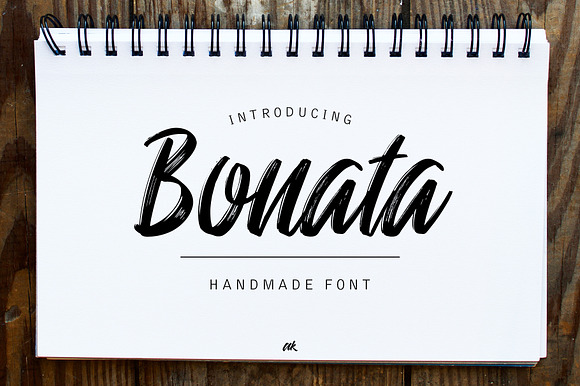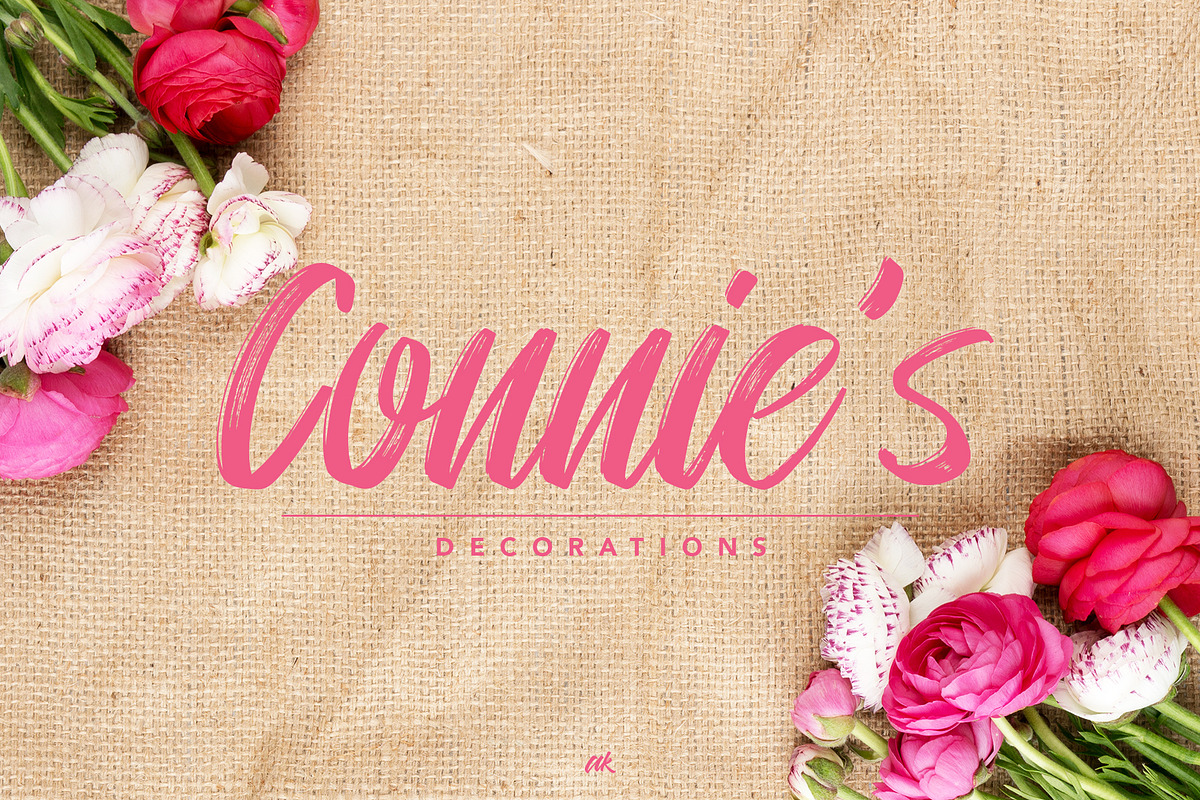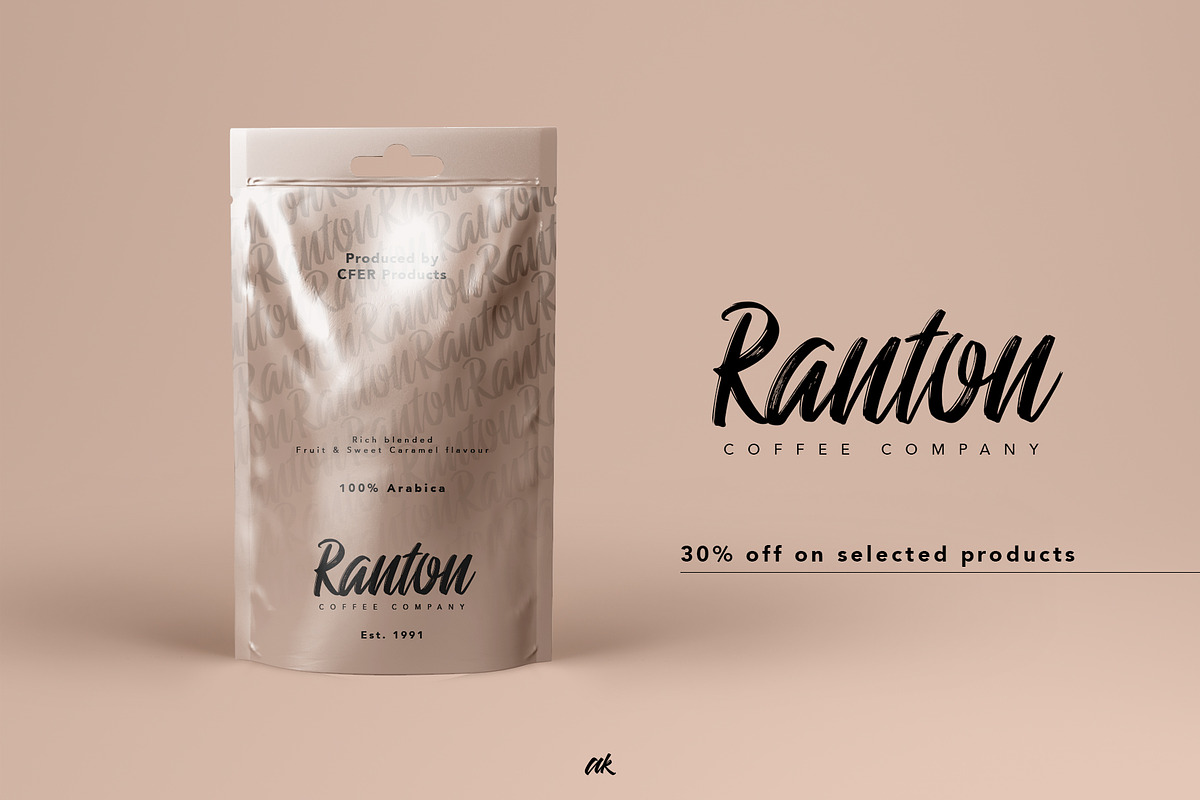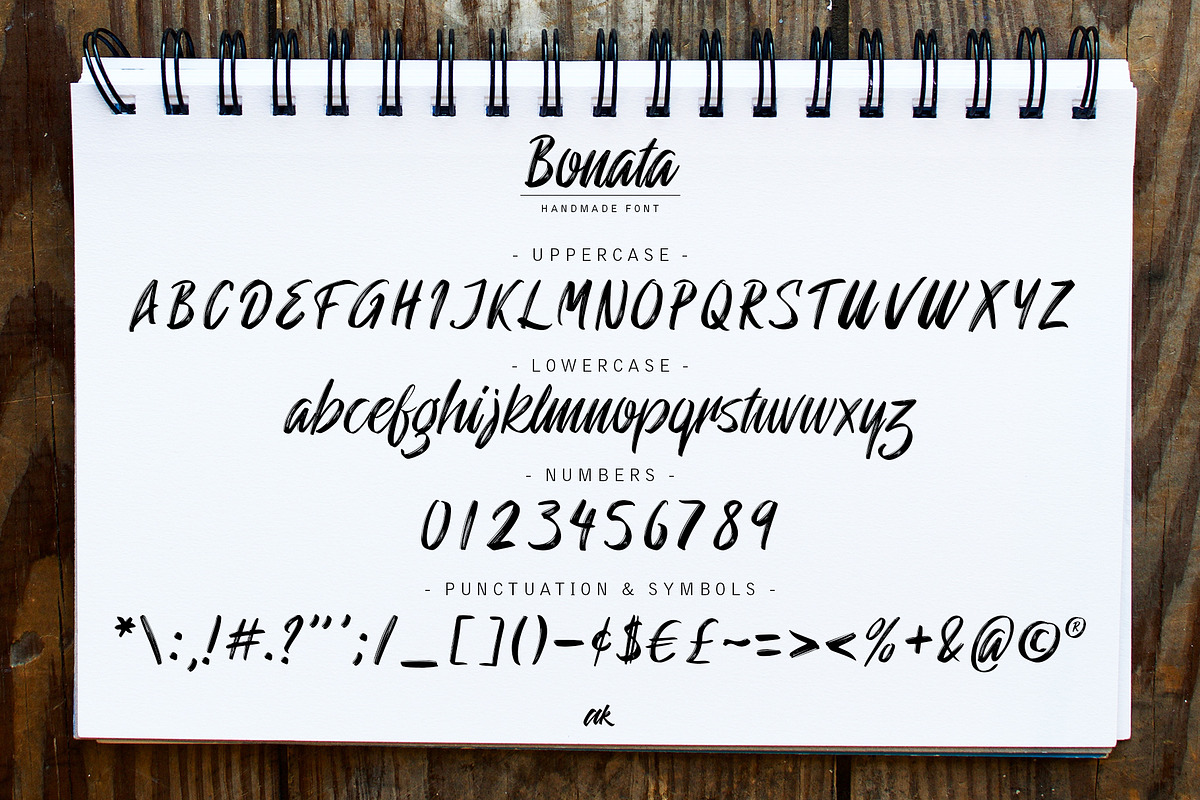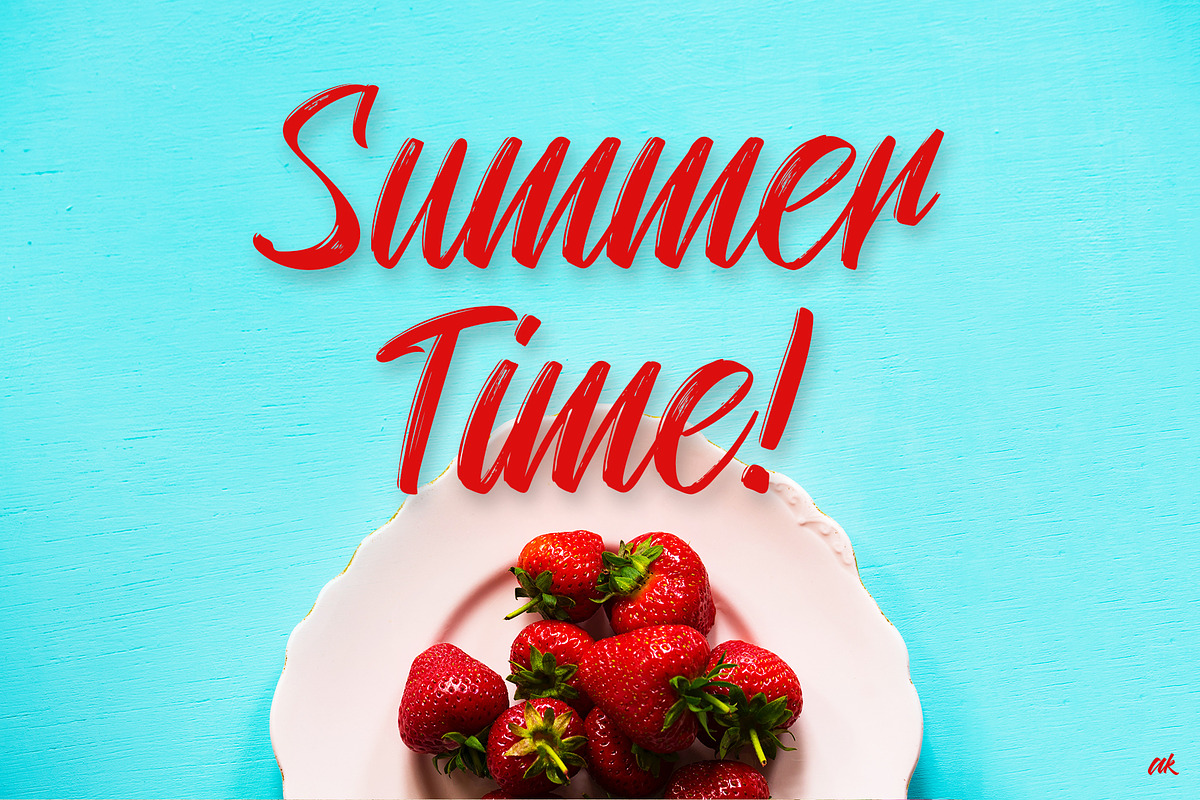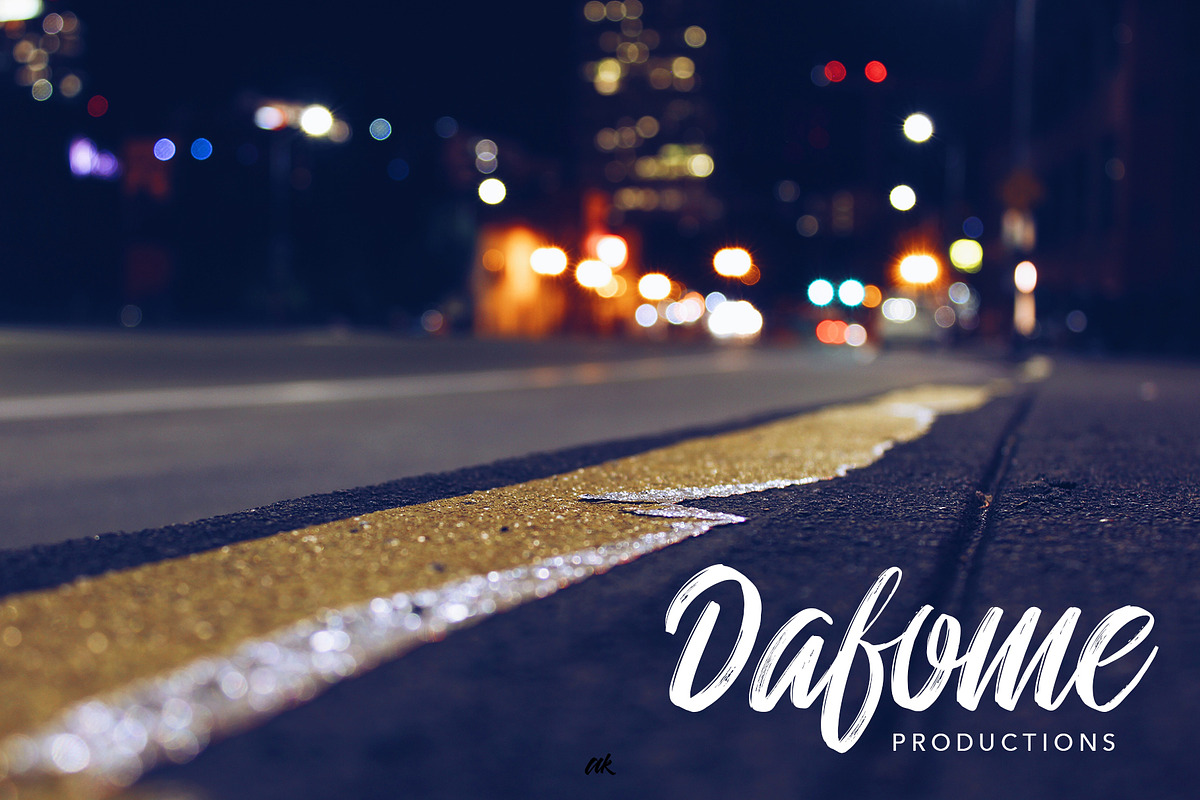
Bonata | Handmade Font
This is Bonata, a unique handmade font with a marker texture. Perfect for logotypes, product packaging, greeting cards, posters, book covers, quotes, wedding stationery etc.
- This hand-drawn font includes all Latin uppercase and lowercase letters, numerals, punctuation and symbols.